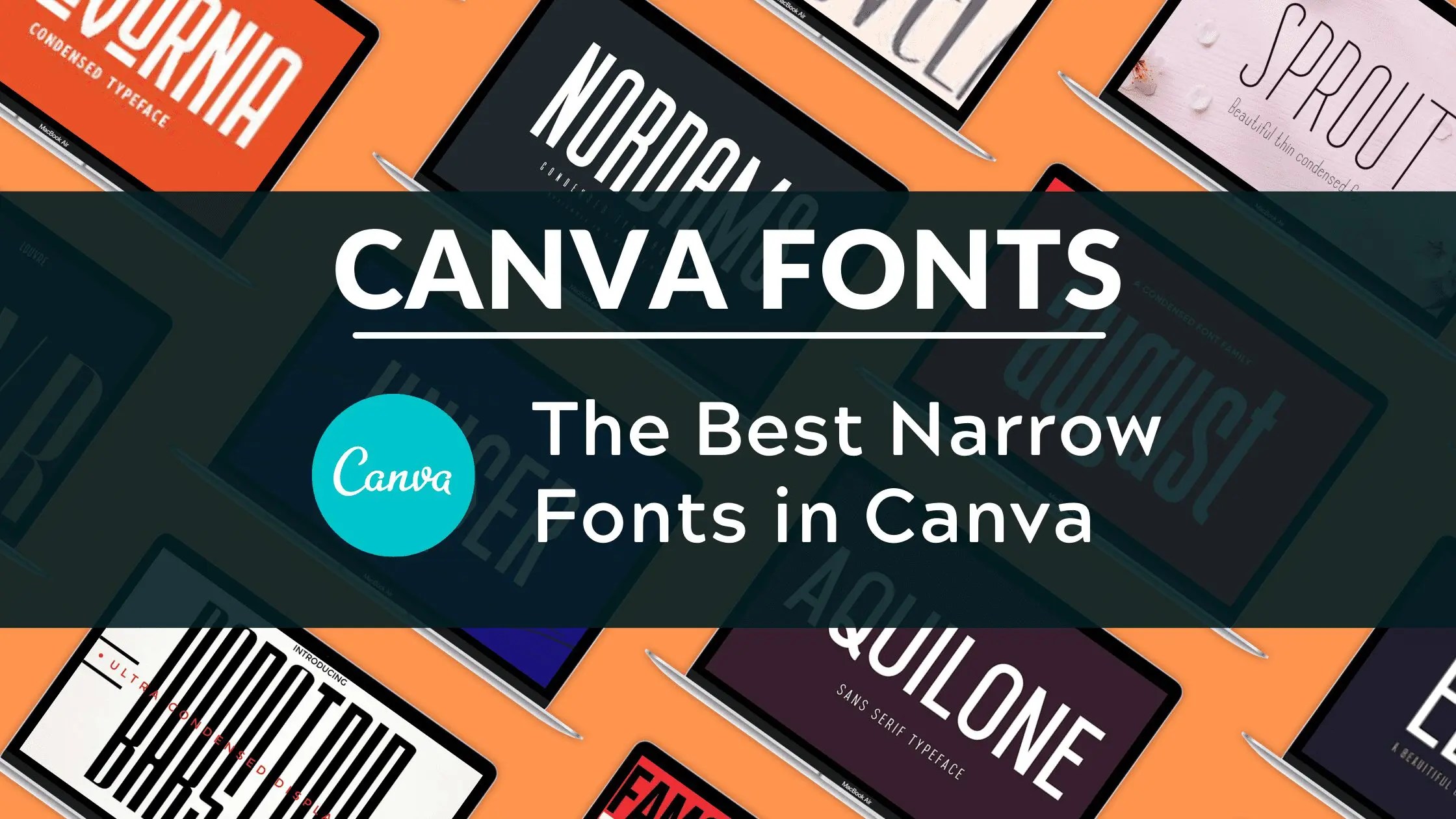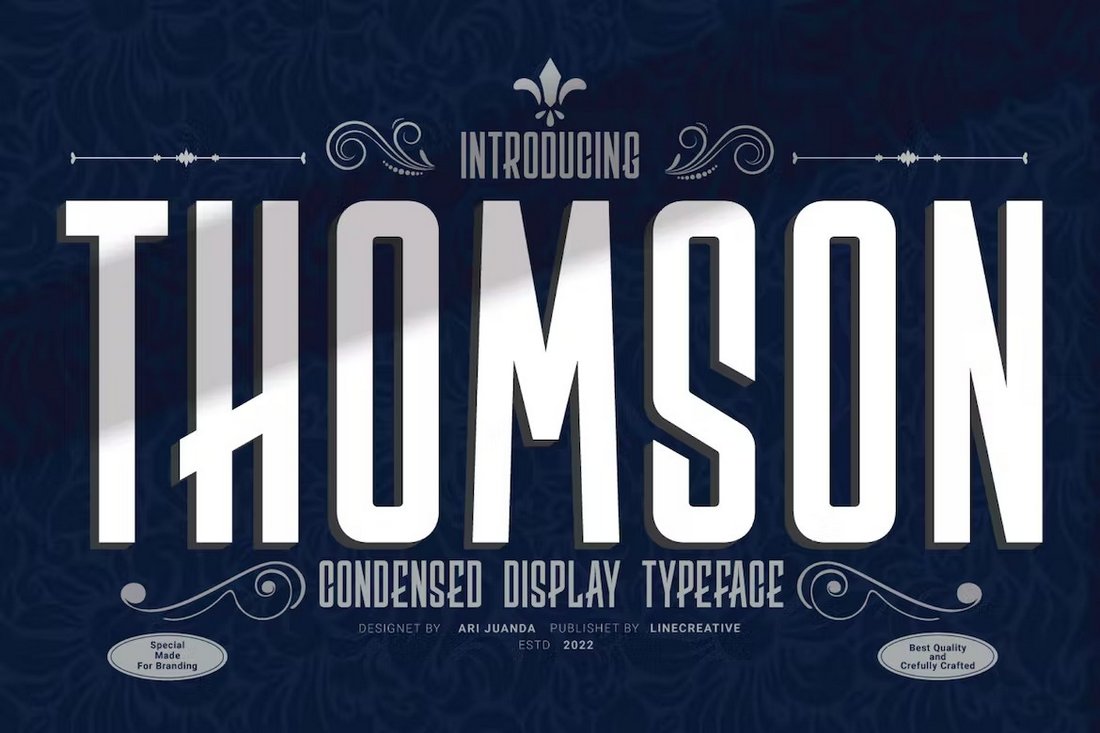
What Is A Narrow Font . Narrow or condensed fonts are fonts that have a narrower width than a standard typeface. A condensed font is considered a narrower. Incorporating condensed typefaces into your designs can elevate the visual impact of labels and headlines. As fonts build a typeface, their use is categorized based on their characteristics. What are narrow and wide fonts, what variations do they come in, and where are they used? A reference to a typeface’s width, usually implying a narrower version of its normal width. These fonts draw attention effectively, making them ideal. The letters are narrower in width, and in many cases, they are taller too. Unlike regular fonts, condensed or narrow fonts take up less horizontal space than their normal font counterparts. Let’s explore this together in this article. A condensed font is a type of font that has narrow letters with smaller spacing between its characters.
As fonts build a typeface, their use is categorized based on their characteristics. These fonts draw attention effectively, making them ideal. Let’s explore this together in this article. A condensed font is considered a narrower. Incorporating condensed typefaces into your designs can elevate the visual impact of labels and headlines. A reference to a typeface’s width, usually implying a narrower version of its normal width. Narrow or condensed fonts are fonts that have a narrower width than a standard typeface. What are narrow and wide fonts, what variations do they come in, and where are they used? The letters are narrower in width, and in many cases, they are taller too. Unlike regular fonts, condensed or narrow fonts take up less horizontal space than their normal font counterparts.
What Is A Narrow Font These fonts draw attention effectively, making them ideal. Unlike regular fonts, condensed or narrow fonts take up less horizontal space than their normal font counterparts. A condensed font is a type of font that has narrow letters with smaller spacing between its characters. Let’s explore this together in this article. The letters are narrower in width, and in many cases, they are taller too. Incorporating condensed typefaces into your designs can elevate the visual impact of labels and headlines. A condensed font is considered a narrower. A reference to a typeface’s width, usually implying a narrower version of its normal width. What are narrow and wide fonts, what variations do they come in, and where are they used? Narrow or condensed fonts are fonts that have a narrower width than a standard typeface. As fonts build a typeface, their use is categorized based on their characteristics.
Sans serif narrow font Royalty Free Vector Image What Is A Narrow Font Incorporating condensed typefaces into your designs can elevate the visual impact of labels and headlines. These fonts draw attention effectively, making them ideal. A condensed font is a type of font that has narrow letters with smaller spacing between its characters. The letters are narrower in width, and in many cases, they are taller too. A reference to a typeface’s. What Is A Narrow Font.
50+ Best Condensed & Narrow Fonts of 2021 Yes Designs What Is A Narrow Font Unlike regular fonts, condensed or narrow fonts take up less horizontal space than their normal font counterparts. Narrow or condensed fonts are fonts that have a narrower width than a standard typeface. A condensed font is considered a narrower. What are narrow and wide fonts, what variations do they come in, and where are they used? A reference to a. What Is A Narrow Font.
Archivo Narrow Font Download What Is A Narrow Font These fonts draw attention effectively, making them ideal. Incorporating condensed typefaces into your designs can elevate the visual impact of labels and headlines. A condensed font is a type of font that has narrow letters with smaller spacing between its characters. A condensed font is considered a narrower. Narrow or condensed fonts are fonts that have a narrower width than. What Is A Narrow Font.
50+ Best Condensed & Narrow Fonts of 2020 Creativetacos What Is A Narrow Font As fonts build a typeface, their use is categorized based on their characteristics. Unlike regular fonts, condensed or narrow fonts take up less horizontal space than their normal font counterparts. A reference to a typeface’s width, usually implying a narrower version of its normal width. Let’s explore this together in this article. A condensed font is considered a narrower. A. What Is A Narrow Font.
50+ Best Condensed & Narrow Fonts of 2020 Design Shack What Is A Narrow Font As fonts build a typeface, their use is categorized based on their characteristics. A condensed font is a type of font that has narrow letters with smaller spacing between its characters. A reference to a typeface’s width, usually implying a narrower version of its normal width. A condensed font is considered a narrower. Unlike regular fonts, condensed or narrow fonts. What Is A Narrow Font.
50+ Best Condensed & Narrow Fonts of 2020 Creativetacos What Is A Narrow Font These fonts draw attention effectively, making them ideal. Narrow or condensed fonts are fonts that have a narrower width than a standard typeface. Unlike regular fonts, condensed or narrow fonts take up less horizontal space than their normal font counterparts. What are narrow and wide fonts, what variations do they come in, and where are they used? Let’s explore this. What Is A Narrow Font.
50+ Best Condensed & Narrow Fonts of 2020 Creativetacos What Is A Narrow Font As fonts build a typeface, their use is categorized based on their characteristics. Narrow or condensed fonts are fonts that have a narrower width than a standard typeface. Let’s explore this together in this article. Unlike regular fonts, condensed or narrow fonts take up less horizontal space than their normal font counterparts. The letters are narrower in width, and in. What Is A Narrow Font.
50+ Best Condensed & Narrow Fonts of 2021 Design Shack What Is A Narrow Font Let’s explore this together in this article. Unlike regular fonts, condensed or narrow fonts take up less horizontal space than their normal font counterparts. What are narrow and wide fonts, what variations do they come in, and where are they used? A condensed font is a type of font that has narrow letters with smaller spacing between its characters. Narrow. What Is A Narrow Font.
Best Narrow Fonts in Canva Canva Templates What Is A Narrow Font As fonts build a typeface, their use is categorized based on their characteristics. These fonts draw attention effectively, making them ideal. A condensed font is considered a narrower. The letters are narrower in width, and in many cases, they are taller too. Incorporating condensed typefaces into your designs can elevate the visual impact of labels and headlines. What are narrow. What Is A Narrow Font.